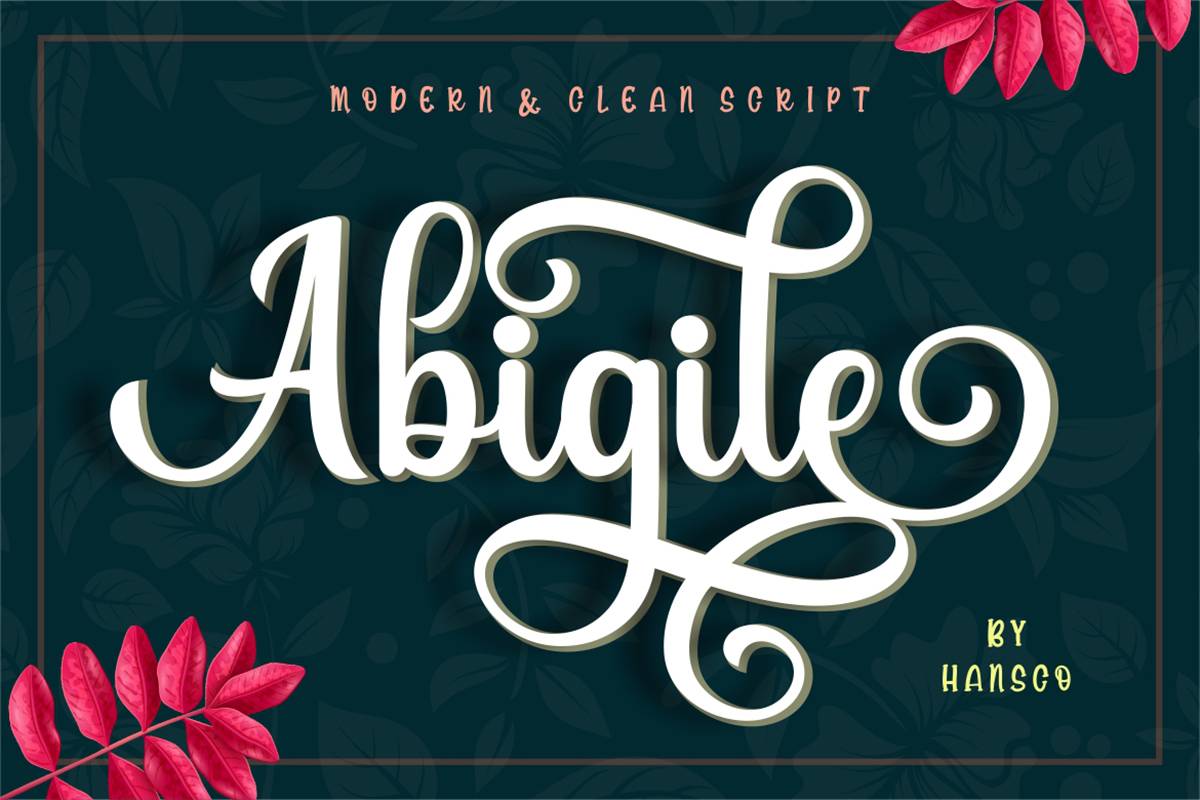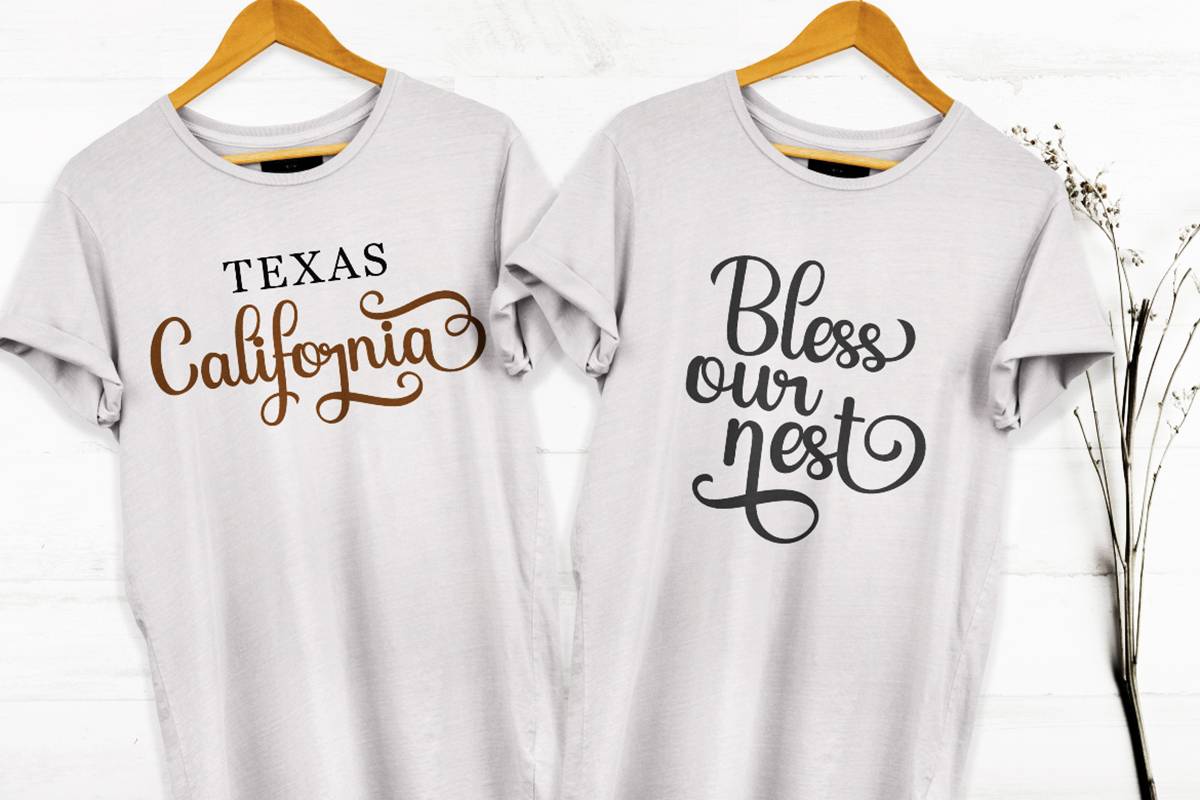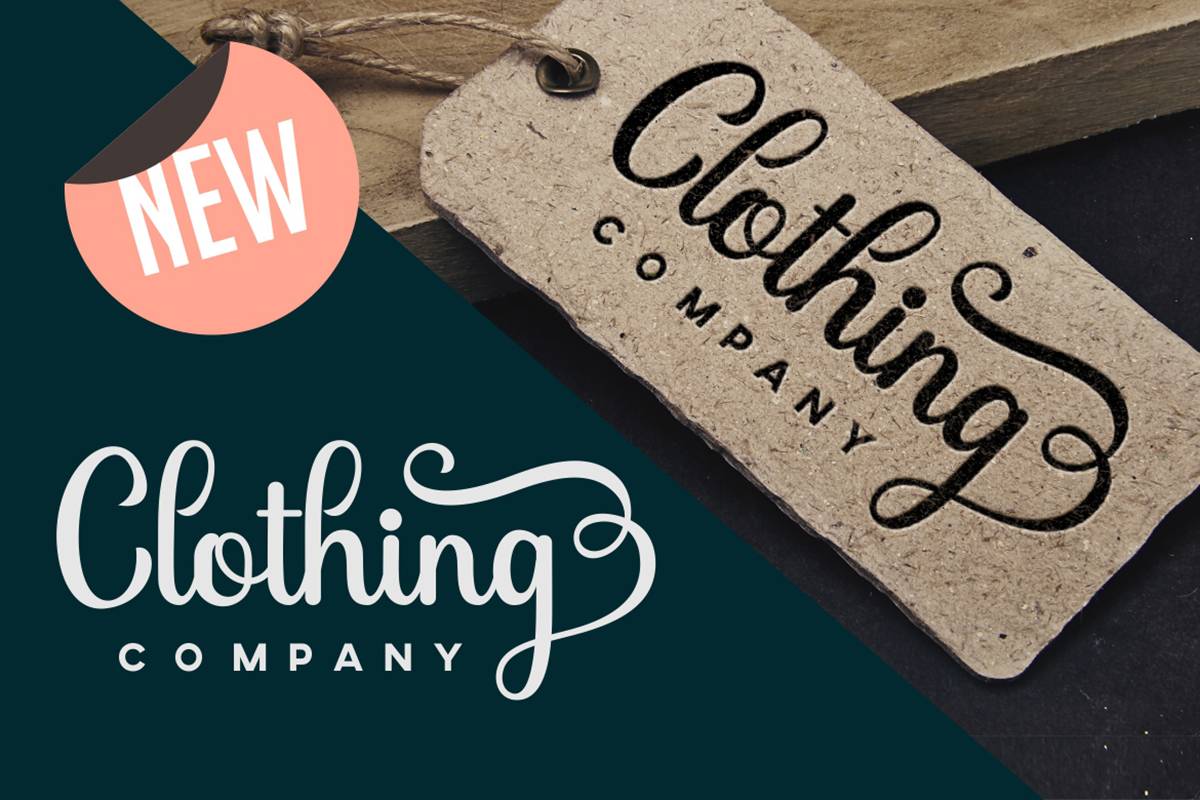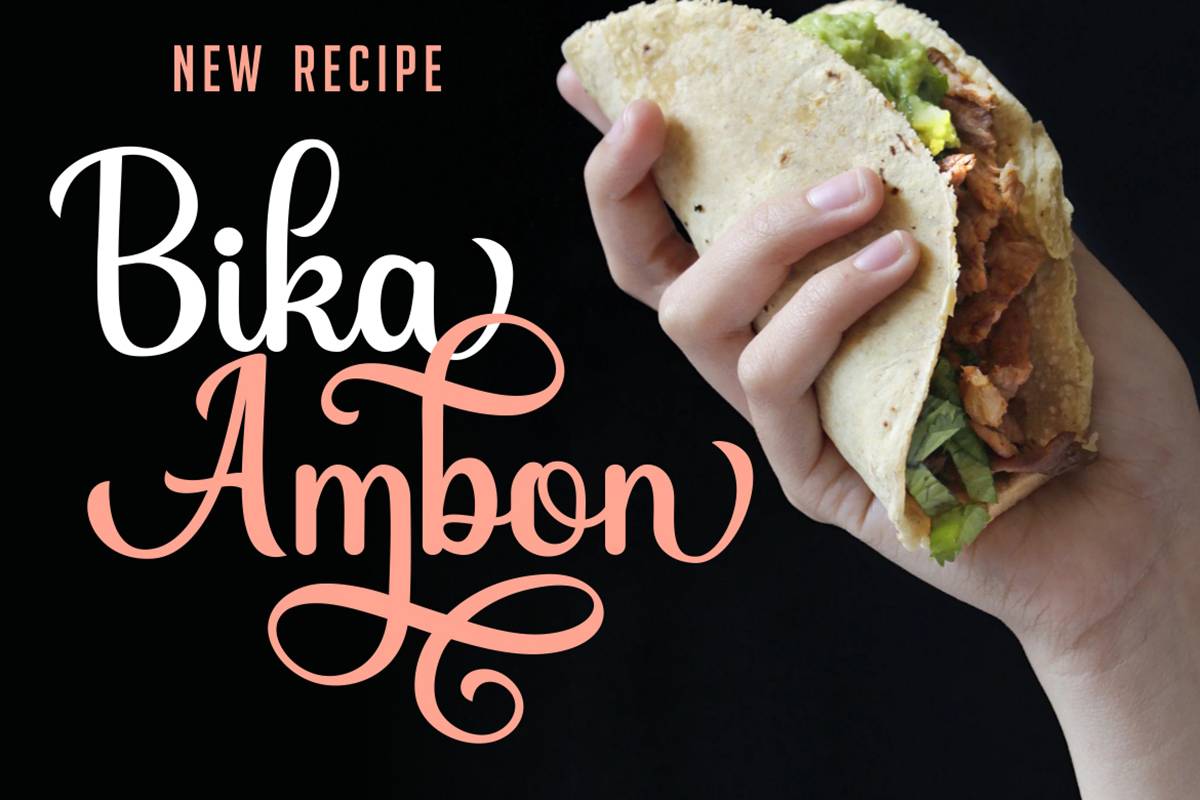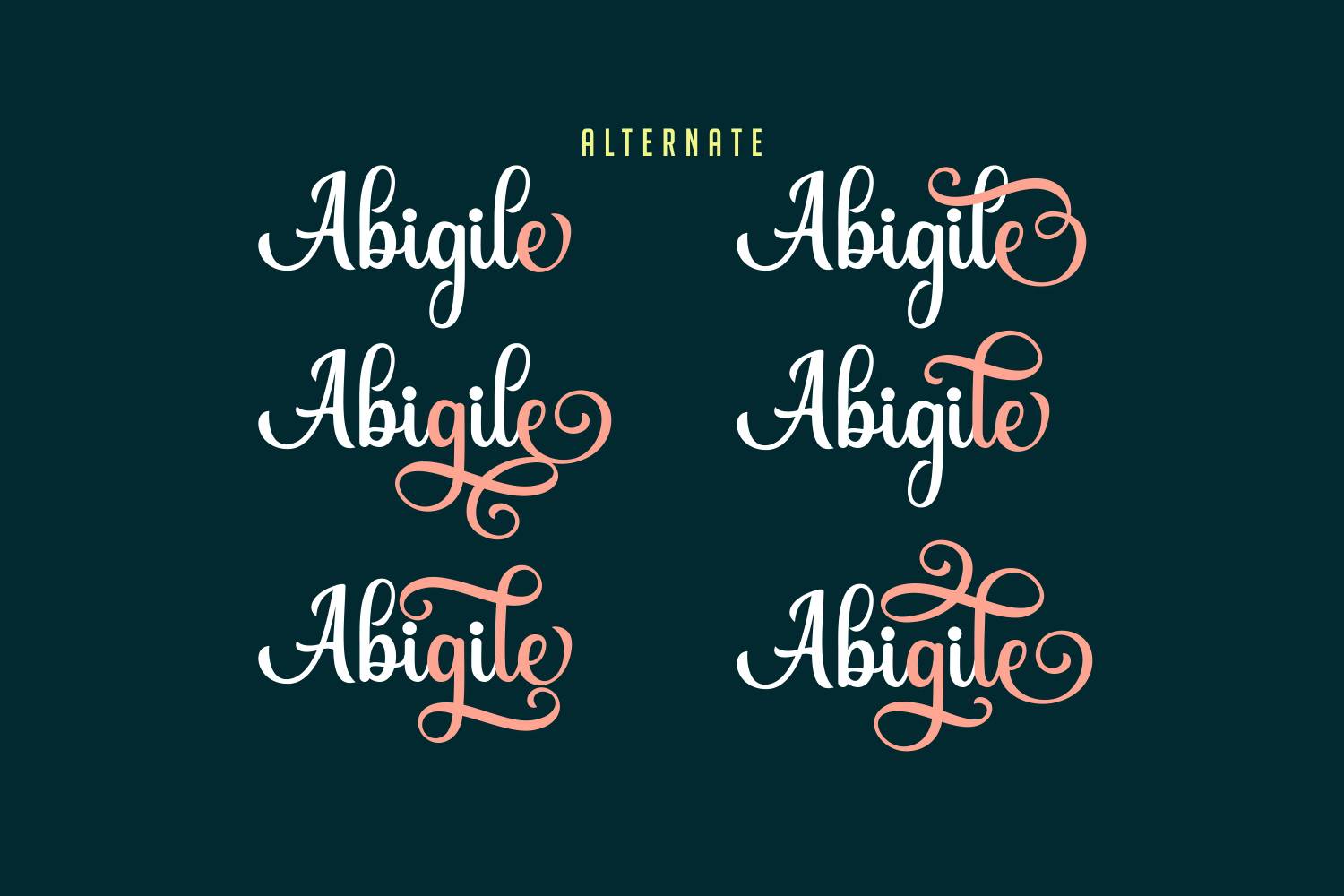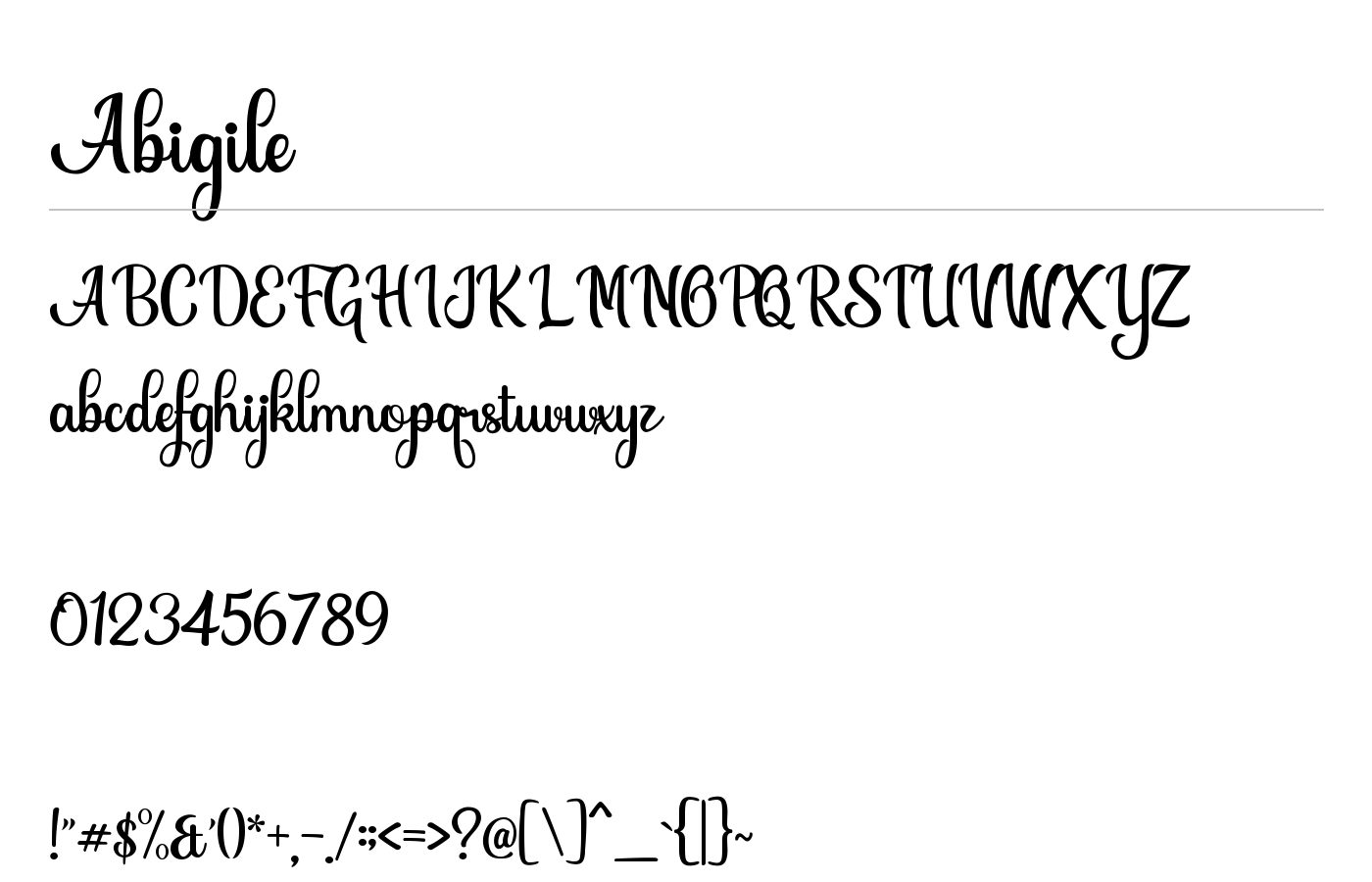
Abigile is a charming script font with elegant, flowing letterforms that blend a classic handwritten feel with modern readability. Its light to regular weight and medium stroke contrast give it a delicate yet clear appearance, making it ideal for invitations, branding, and feminine or creative projects that need a touch of sophistication and warmth. This font works best in headlines and decorative text where its stylish curves can shine without losing legibility.
| Font family | Abigile Font |
| Designer | Burhan Afif |